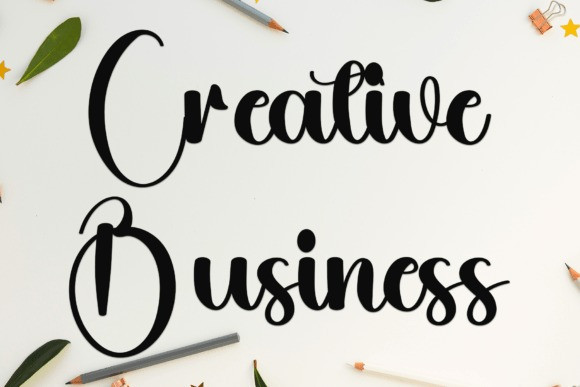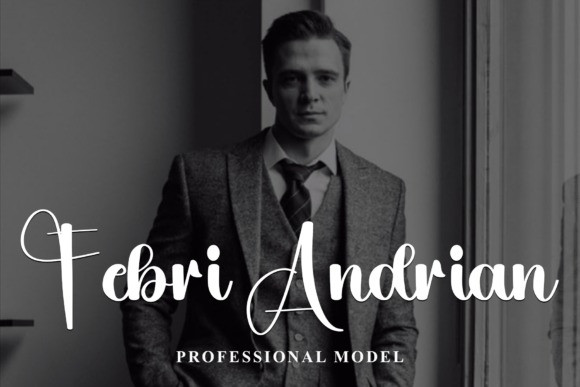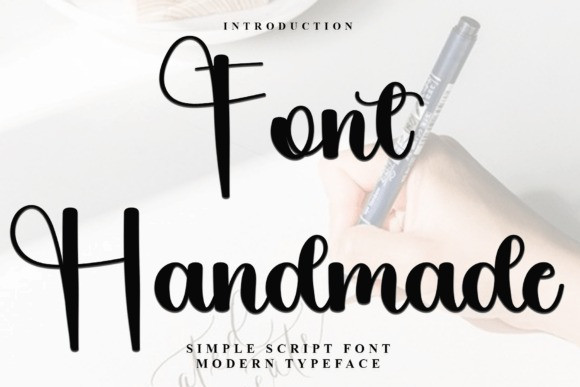
Font Handmade Font
Font Handmade Font – is a graceful and simple script font that stands out due to its striking contrast between tall, elegant capital letters and small, connected lowercase forms. Its modern, slender strokes give it the appearance of genuine marker or pen calligraphy, making it feel effortlessly authentic.